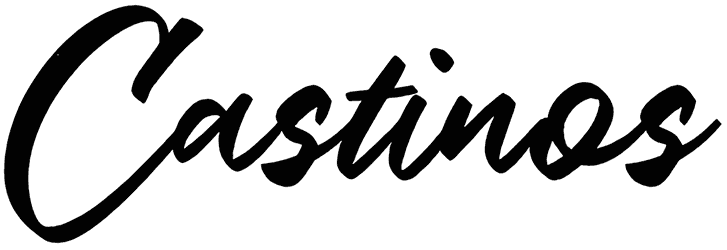
While selecting a good font can boost the quality of your graphic content, including business cards, diplomas, book covers, or branding, a bad choice would ruin everything, so we suggest being very clever and picking a lovely script font, the same as Castinos. This handwritten font comes with well-rounded characters and leads to a vibe of momentum, professionalism, and vitality.